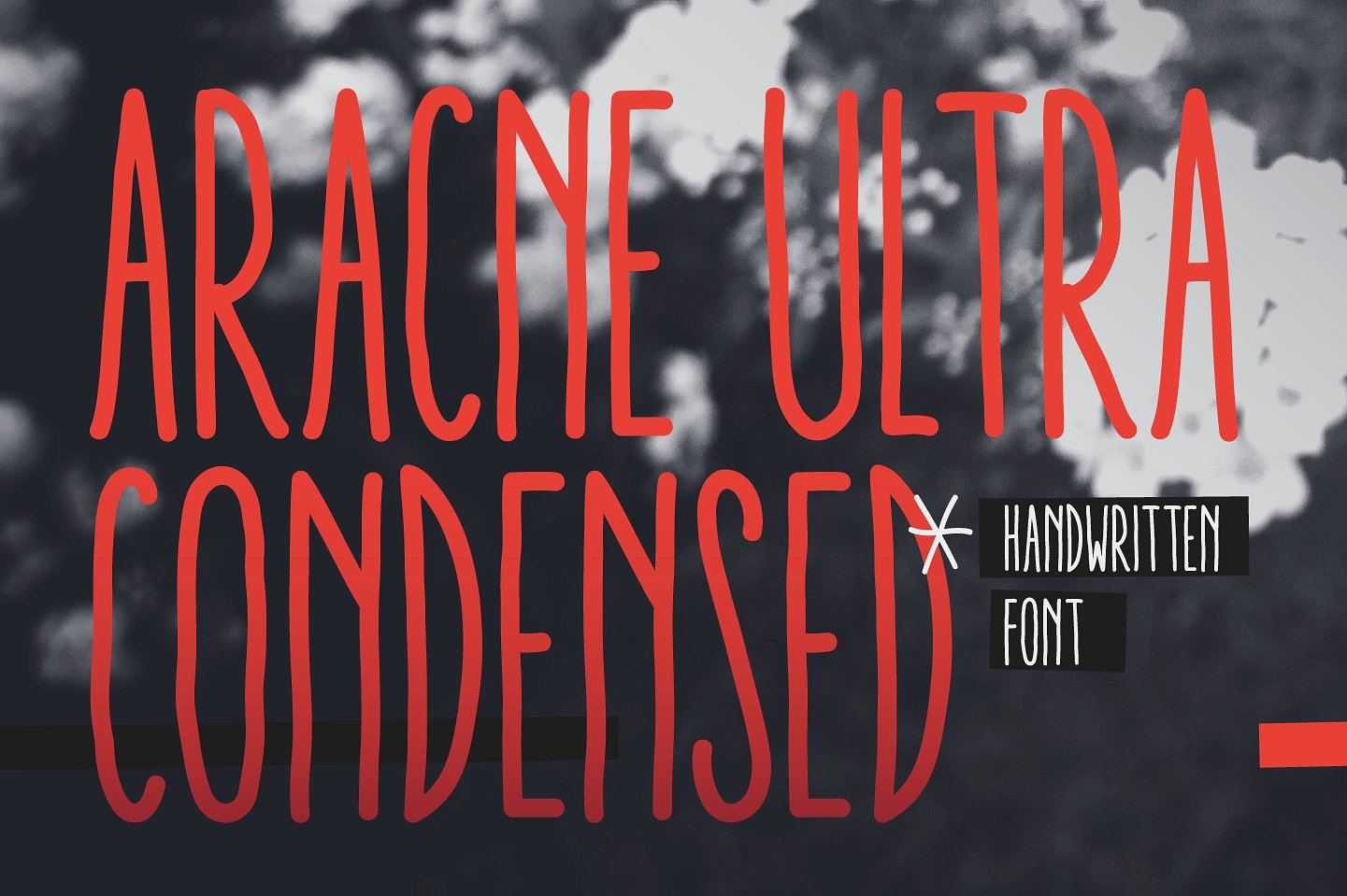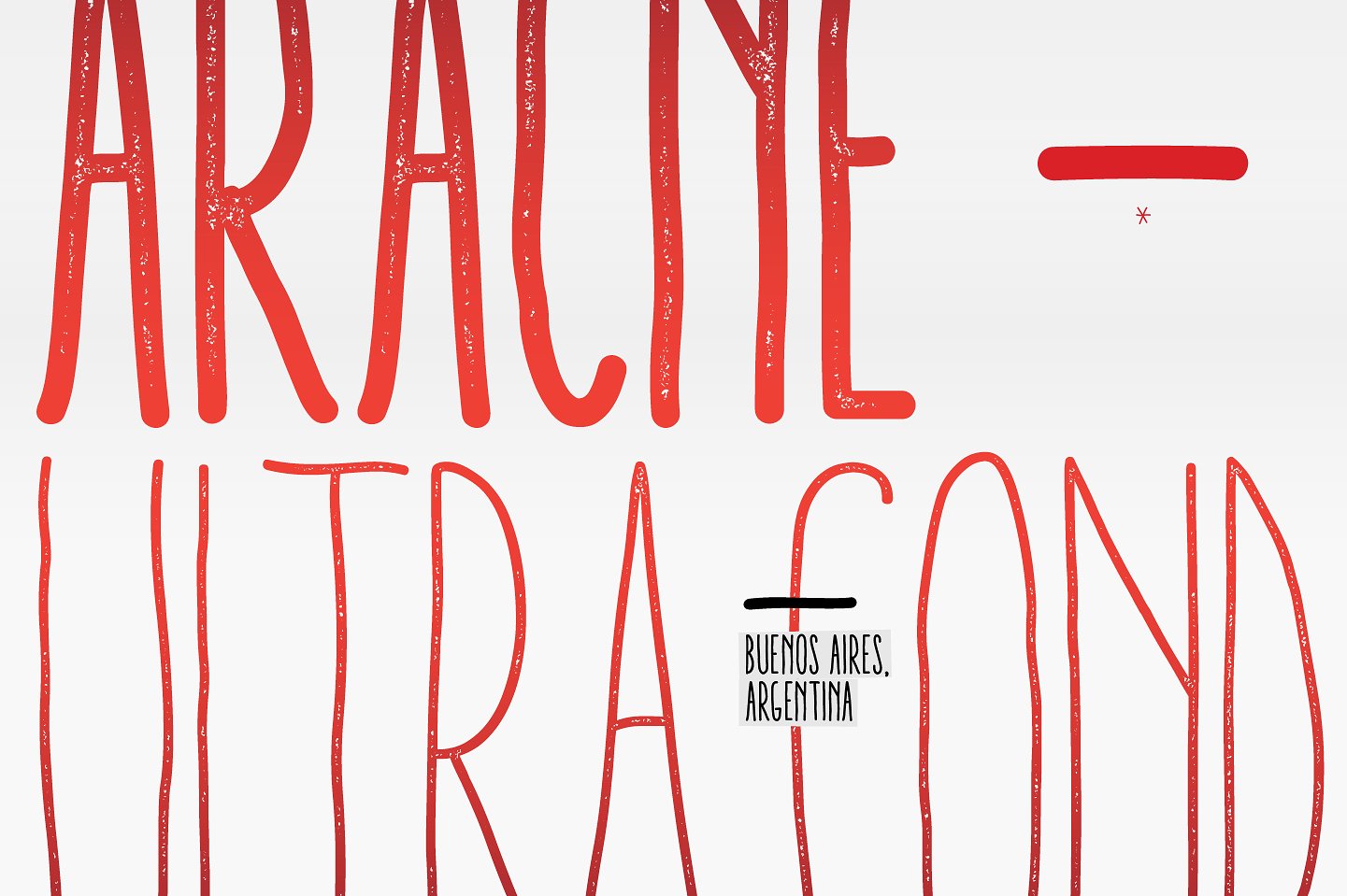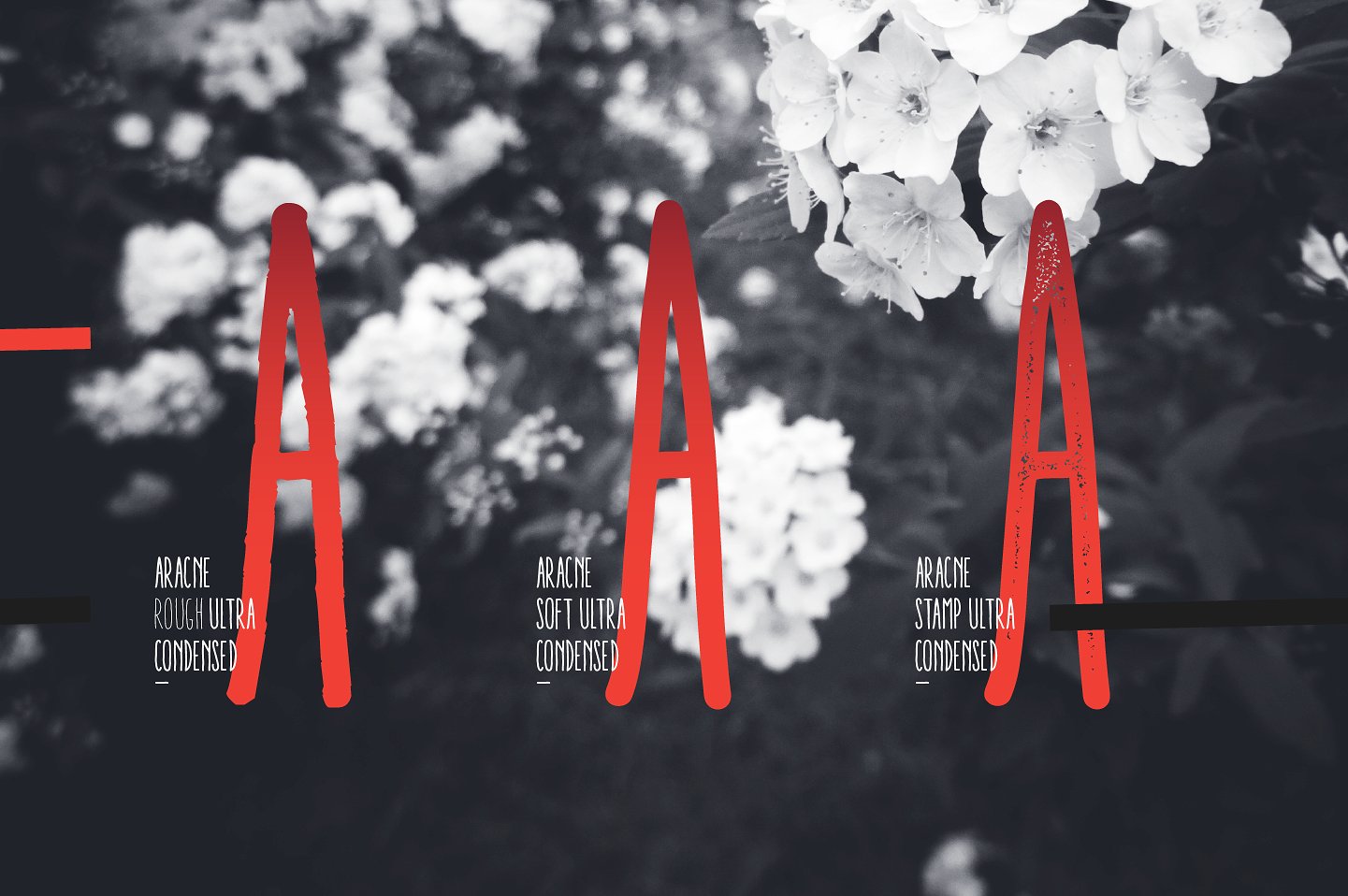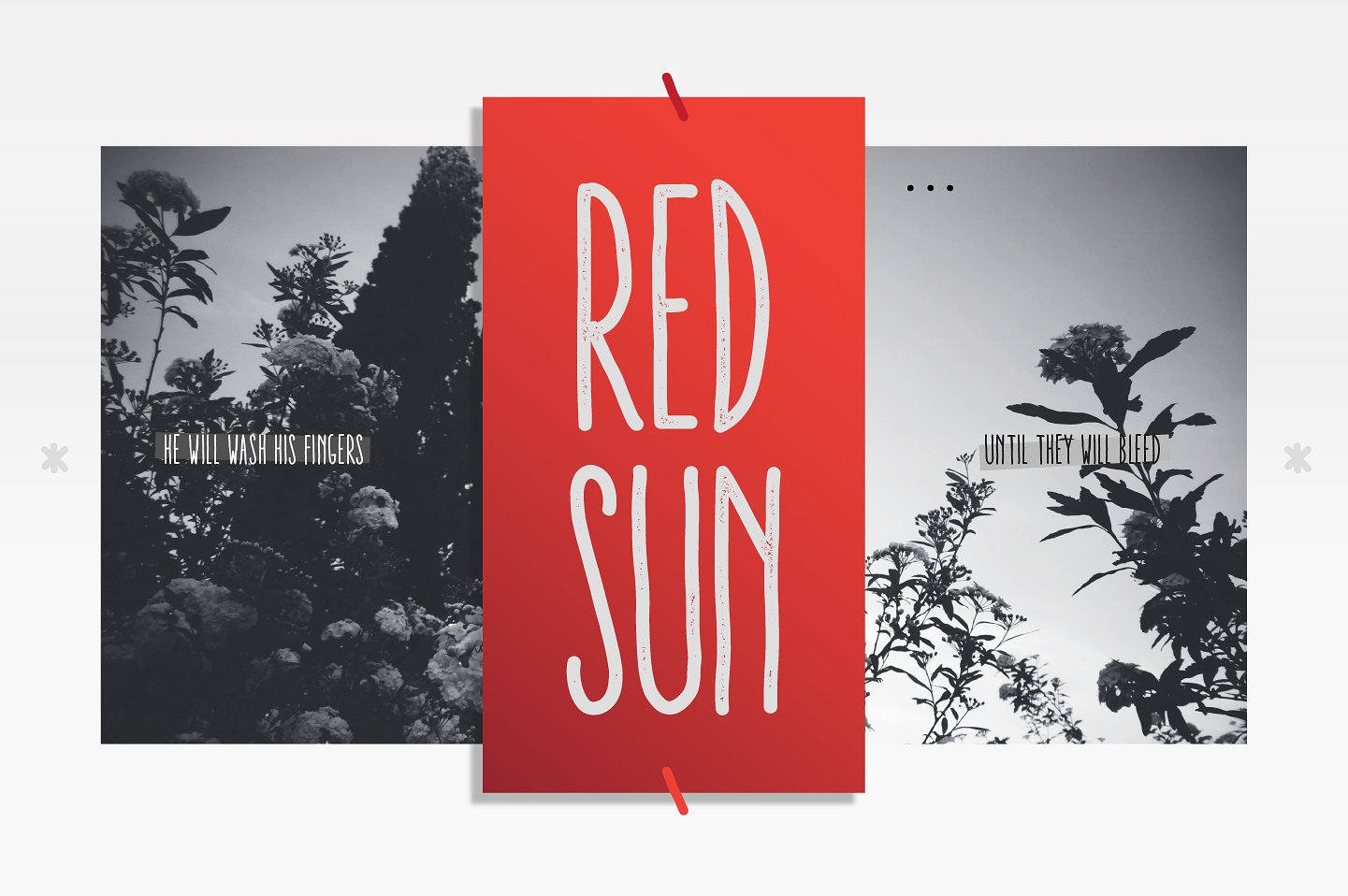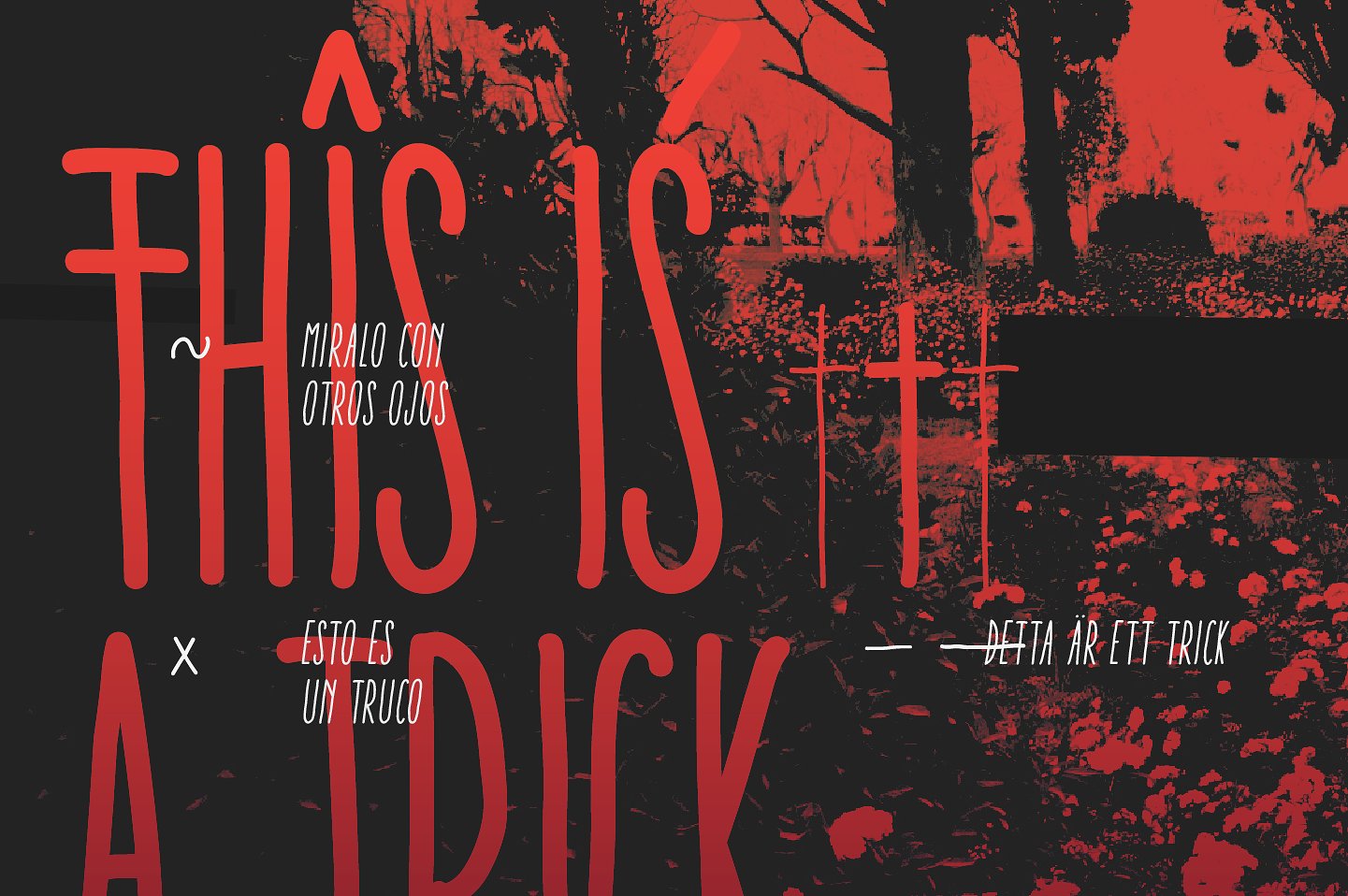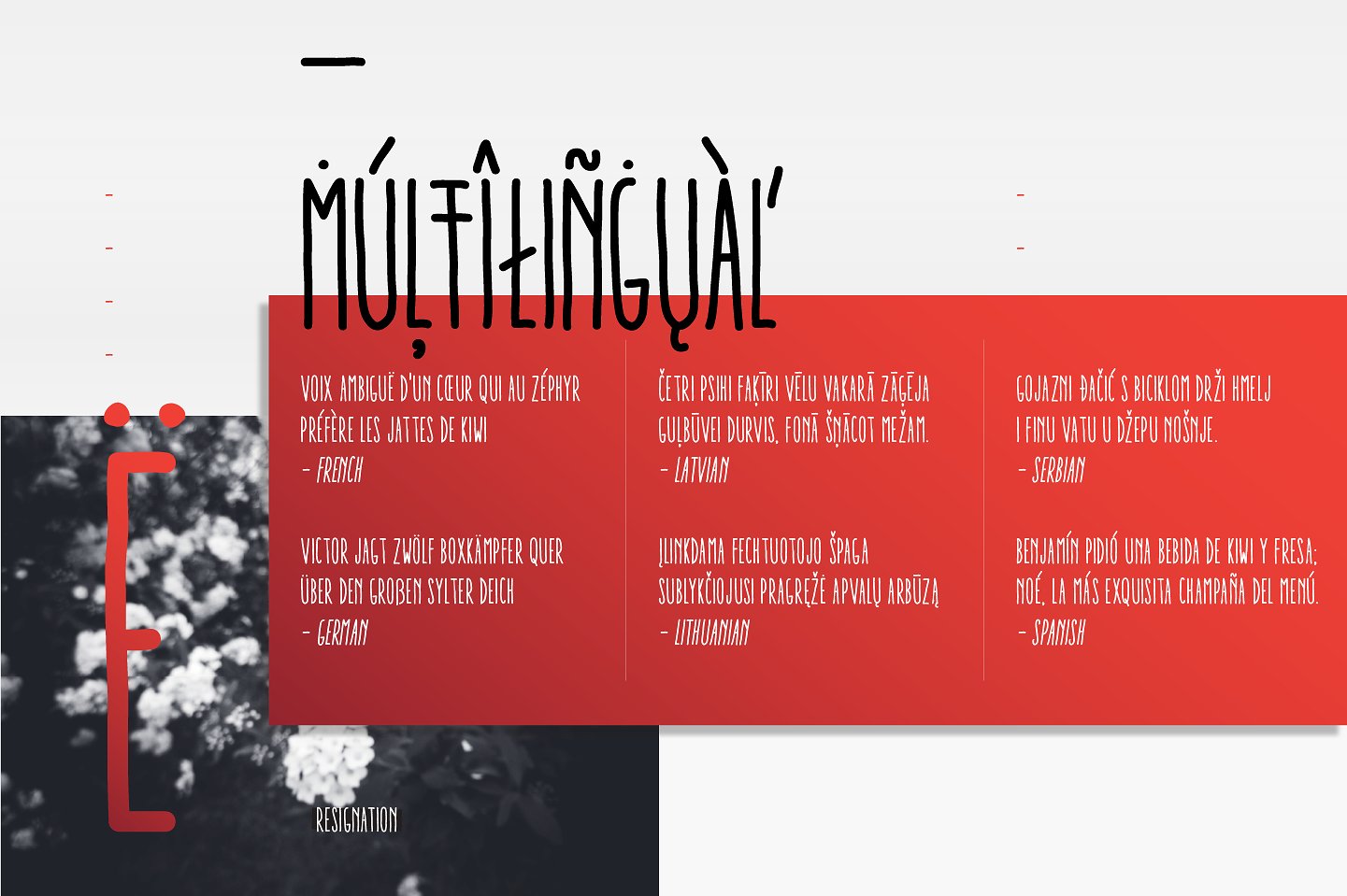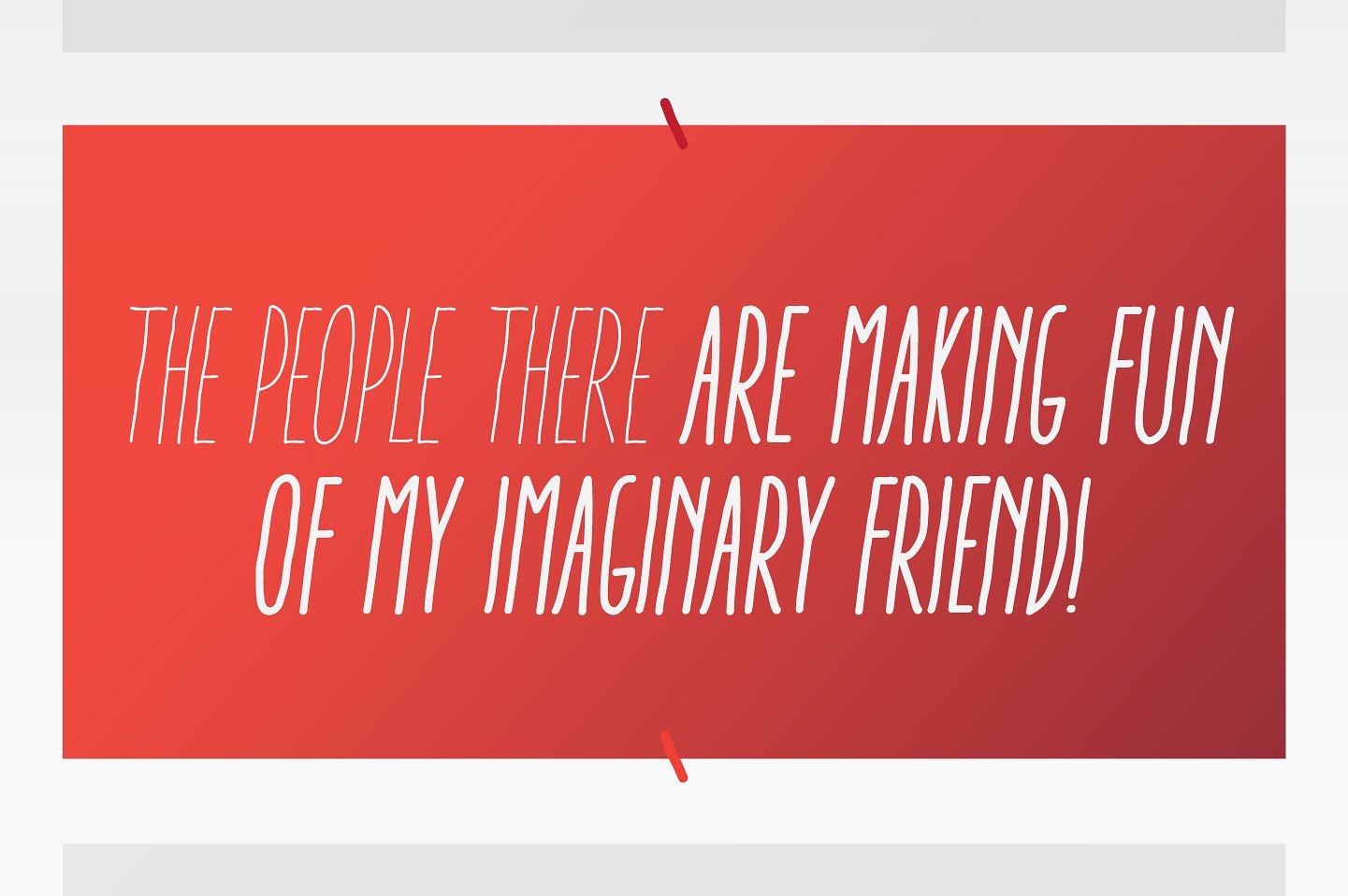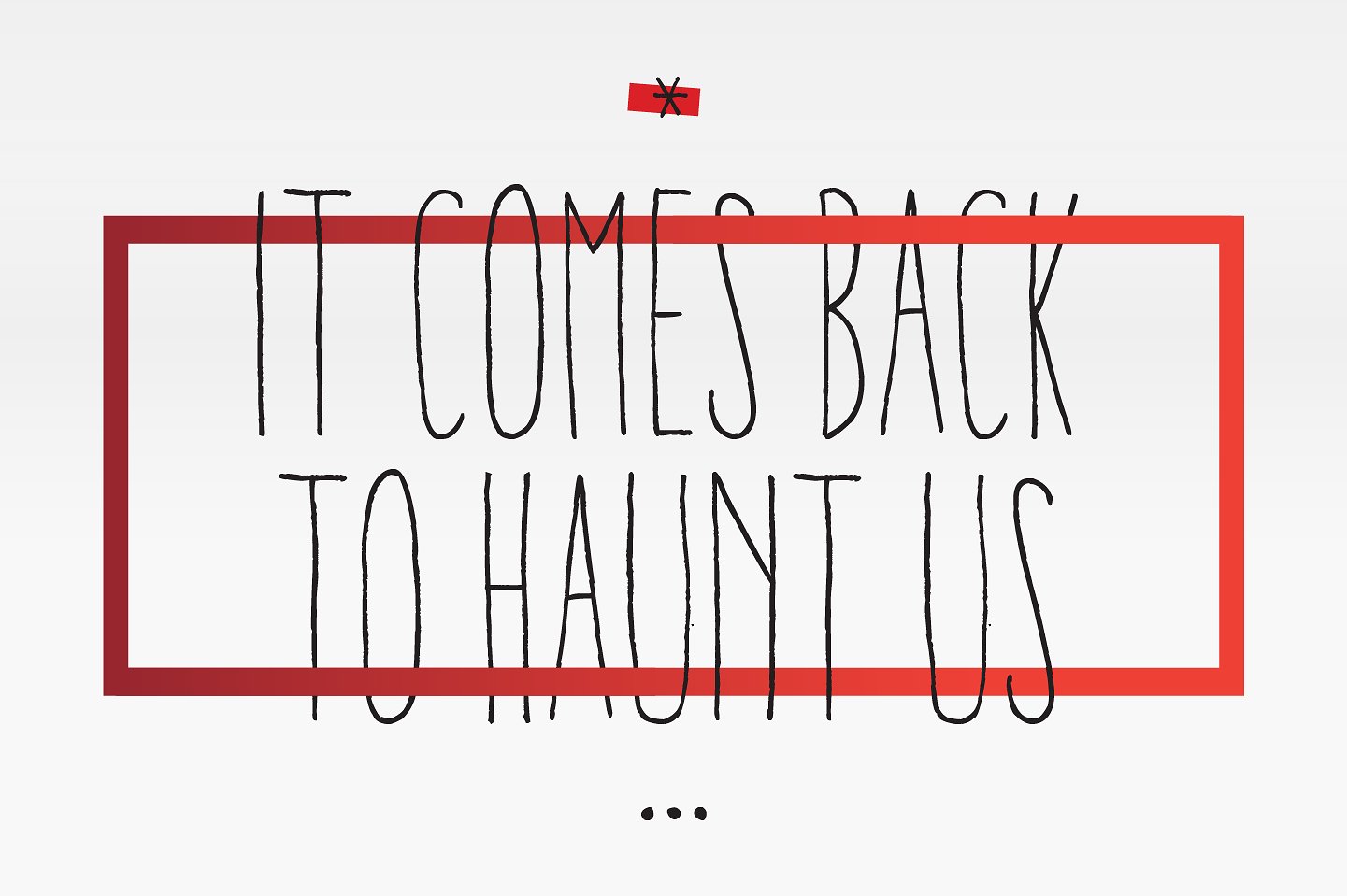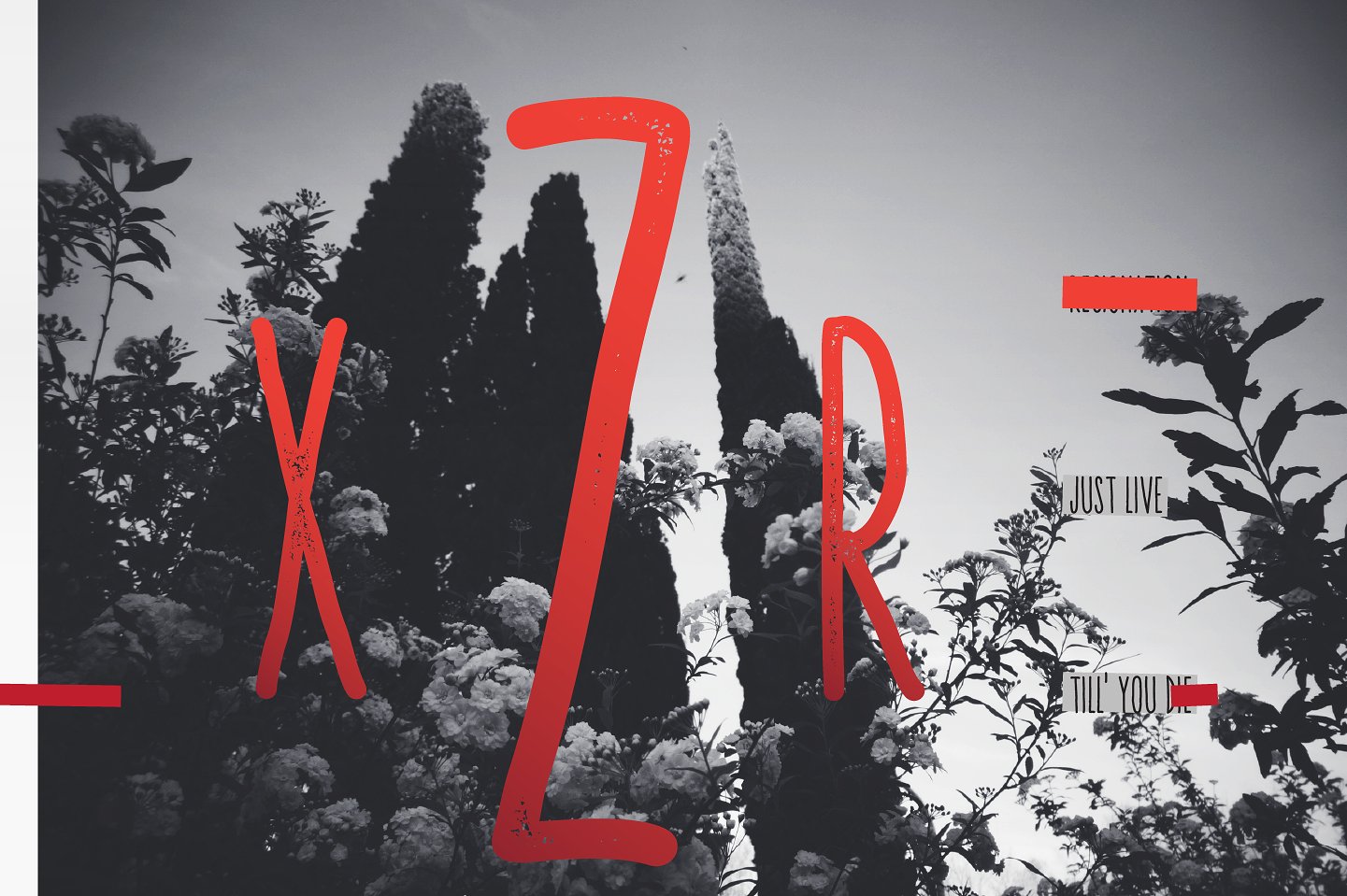
Aracne Ultra Condensed Font
About Aracne Ultra Condensed Font
Aracne Ultra Condensed is the even more condensed sister font of Aracne and Aracne Condensed. This font was created to provide a relaxed and casual handwritten flair to your projects in both digital and print.